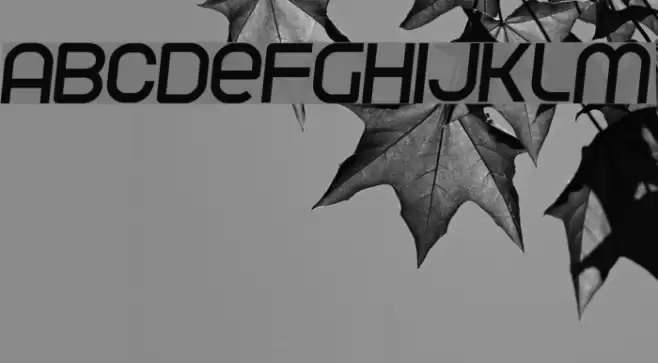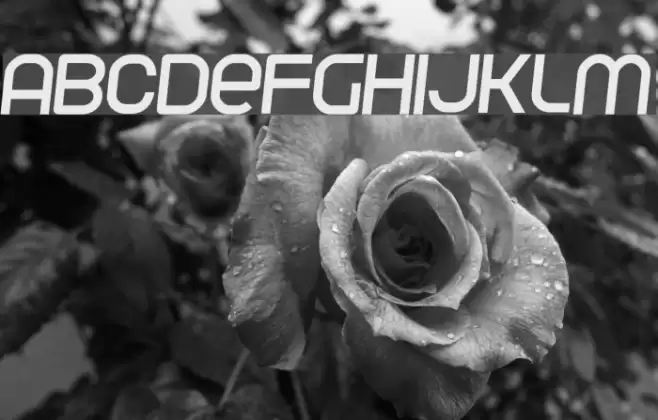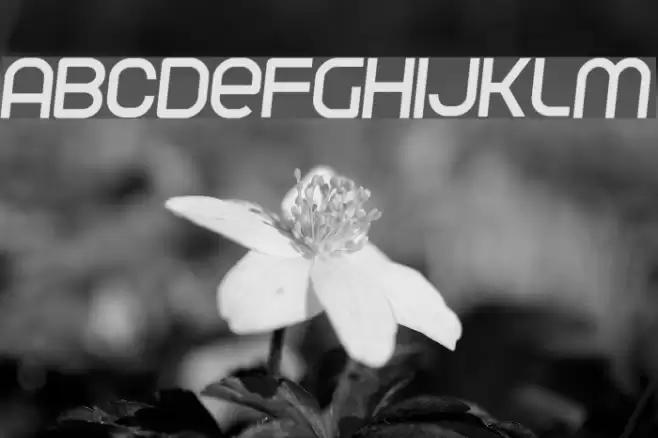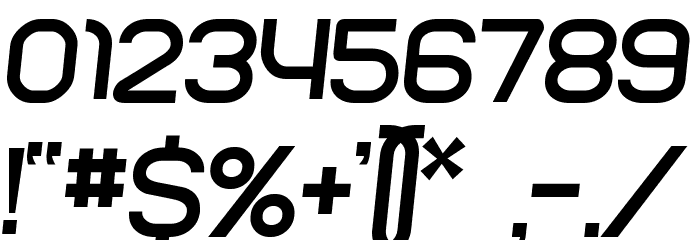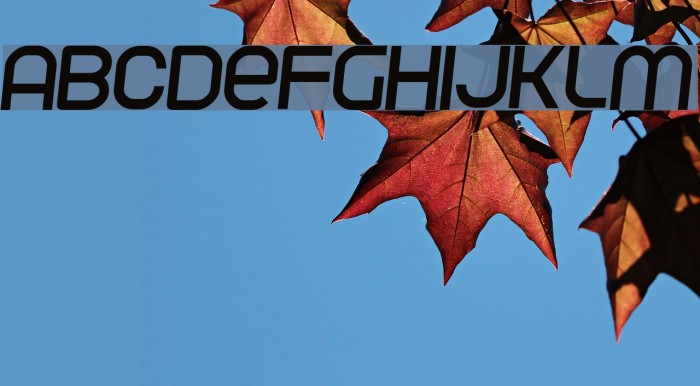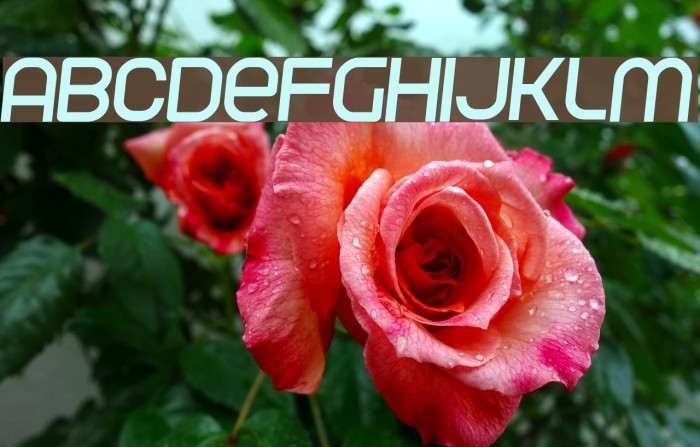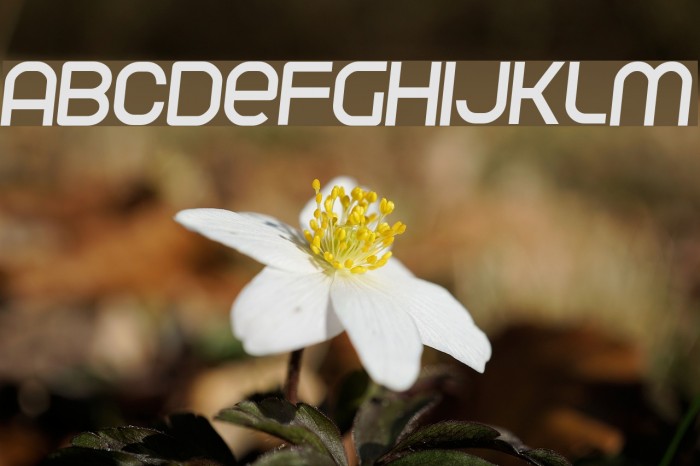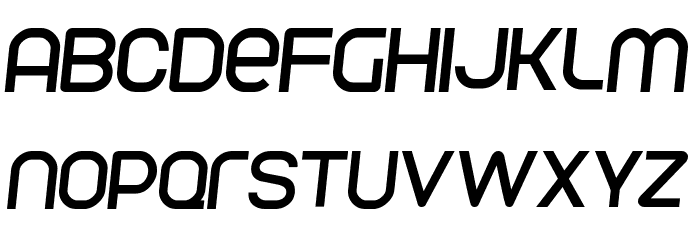
Parvoflavin Normal Skew
This font features a modern, sleek design with a slight forward slant, giving it a dynamic and energetic appearance. The characters are crafted with precision, showcasing clean lines and a uniform stroke width. The uppercase and lowercase letters maintain a consistent style, with rounded edges that soften the overall look. The numerals are bold and easily readable, complementing the alphabetic characters. Special characters are included, maintaining the same stylistic approach. The font's design is versatile, suitable for various digital and print applications, offering a contemporary feel that can enhance visual appeal.
A modern, slanted font with clean lines and rounded edges, ideal for dynamic designs.
- Proposed Projects: Ideal for branding, advertising, sports-related designs, and modern digital interfaces.
- Use Case: Headlines, Logos, Digital interfaces